Designing beautiful Urdu graphics on mobile has always been a challenge for creators. Especially for those who want professional quality results without using complex software. Most apps either lack proper Urdu support or don’t offer advanced design tools. This is where the UrduCanvas changes the game completely.
UrduCanvas is not just another design app. It is a complete Urdu creative studio that is built specifically for Urdu designers, content creators, students, businesses and social media marketers. Whether you want to create Islamic posts, wedding invitations, posters or social media content, this app gives you everything inside a single mobile workspace.
The biggest strength of UrduCanvas is that it is designed only for Urdu language design. Unlike general editing apps, it understands the needs of Urdu typography, Nastaleeq styling, and right to left (RTL) writing. It also includes powerful tools like Kasheeda support, advanced layers, gradients and a huge template library that makes designing fast and professional even if you have no prior design experience.
One of the standout features of UrduCanvas is its full set of professional design tools. Instead of switching between multiple apps, everything is available inside one platform.
These tools make it possible to create polished and high quality Urdu graphics directly from your mobile phone.
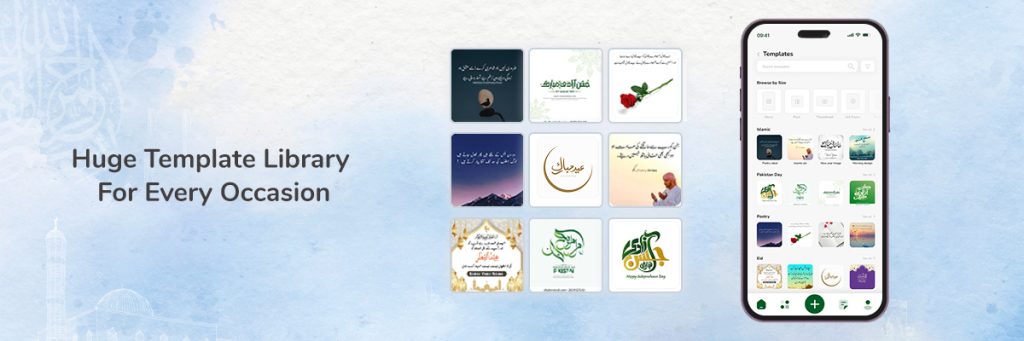
UrduCanvas includes a rich and professionally designed template gallery that saves time and boosts creativity.
You can instantly create designs for:
Instead of starting from scratch, users can simply pick a template and customize it within minutes.
Typing Urdu properly in design apps is mostly frustrating, but UrduCanvas solves this problem with a fully optimized Urdu typing engine.
Fonts are categorized into different styles like bold, thin, condensed, handwriting, outline and traditional poetic Nastaleeq fonts. This gives users full creative freedom while designing.
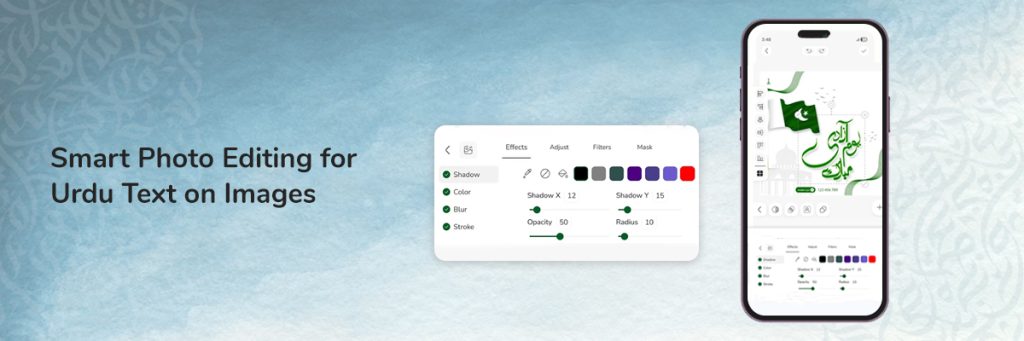
Creating Urdu text on images becomes simple with smart editing tools included in UrduCanvas.
These features allow users to create posters where Urdu typography blends perfectly with images, making designs more attractive and impactful.
One of the most unique features of UrduCanvas is its exclusive Qirtas Pro font. Unlike traditional diagonal Nastaleeq fonts, Qirtas Pro is designed in a clean horizontal style. This makes it perfect for:
This font gives Urdu designs a modern publishing feel that is rarely found in mobile apps, making UrduCanvas stand out in the design world.
To make design even easier, UrduCanvas also provides a rich asset library including:
These ready made assets help users create visually appealing designs without needing external resources.
Here is why UrduCanvas is becoming a preferred choice for Urdu designers:
Urdu design on mobile is no longer limited or difficult. With the help of UrduCanvas, users can now create professional quality Urdu posters, social media posts, and creative graphics in just minutes. Whether you are a beginner or a professional designer, UrduCanvas gives you the tools, fonts and flexibility needed to turn your ideas into stunning visual designs all from your smartphone.